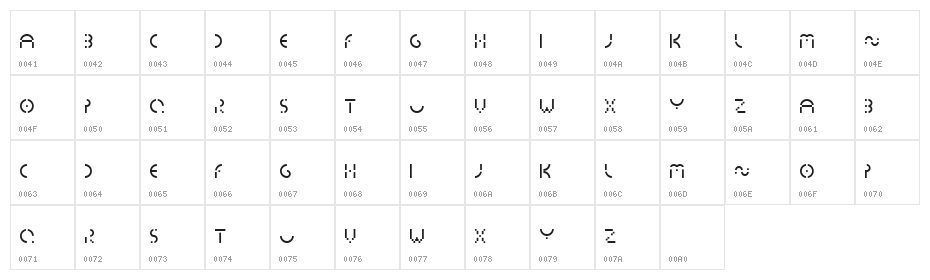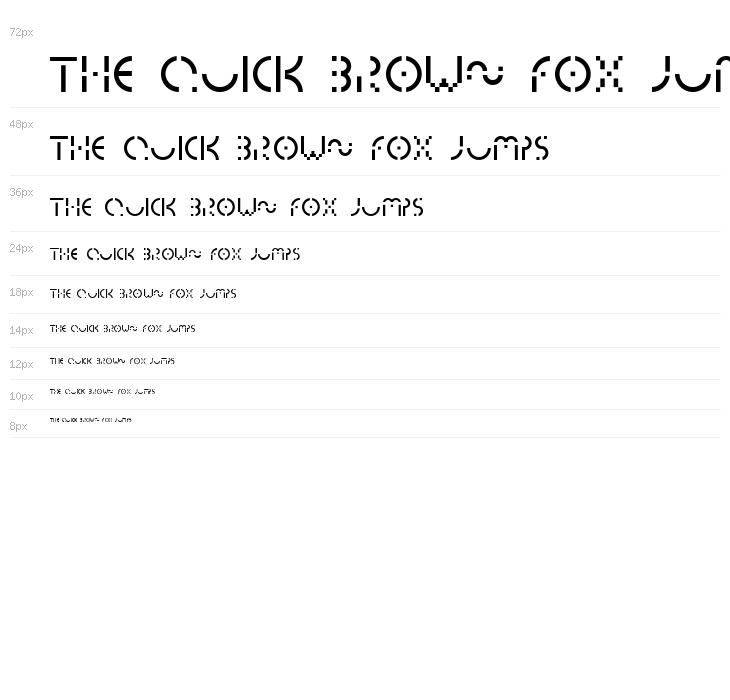
essedicom Font
essedicom Description
This font features a futuristic and digital aesthetic, characterized by its use of geometric shapes and a dot-matrix style. The letters are composed of segmented lines and dots, giving it a pixelated appearance reminiscent of early digital displays. The uppercase and lowercase letters maintain a consistent style, with a focus on symmetry and minimalism. The font's unique design makes it stand out, with each character crafted to maintain readability while embracing a modern, tech-inspired look.
| Use Case | Logos, Headlines, Digital interfaces |
| Proposed Projects | Ideal for tech-related branding, digital art projects, video game interfaces, and futuristic-themed designs. |